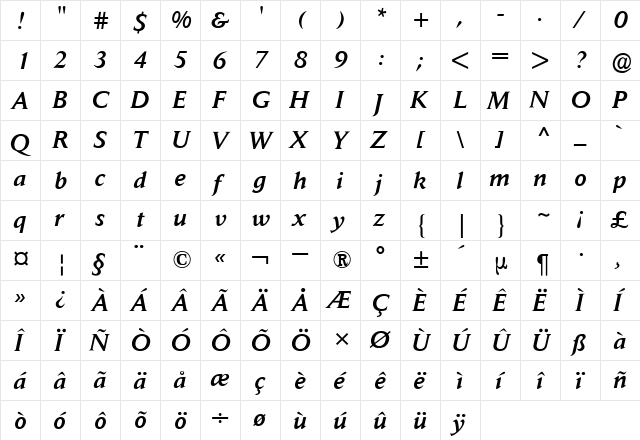
Daily News BQ Italic
Design Context for Daily News BQ Typeface
Daily News BQ offers clean, dependable letterforms without strong stylistic allegiance, making it a practical choice for designers who need flexibility. The dynamic lean of this cut emphasises speed and emphasis in any layout.
Pro Tip: Try Daily News BQ for annotation and caption copy alongside an upright companion — the contrast in angle creates a dynamic but ordered typographic system.